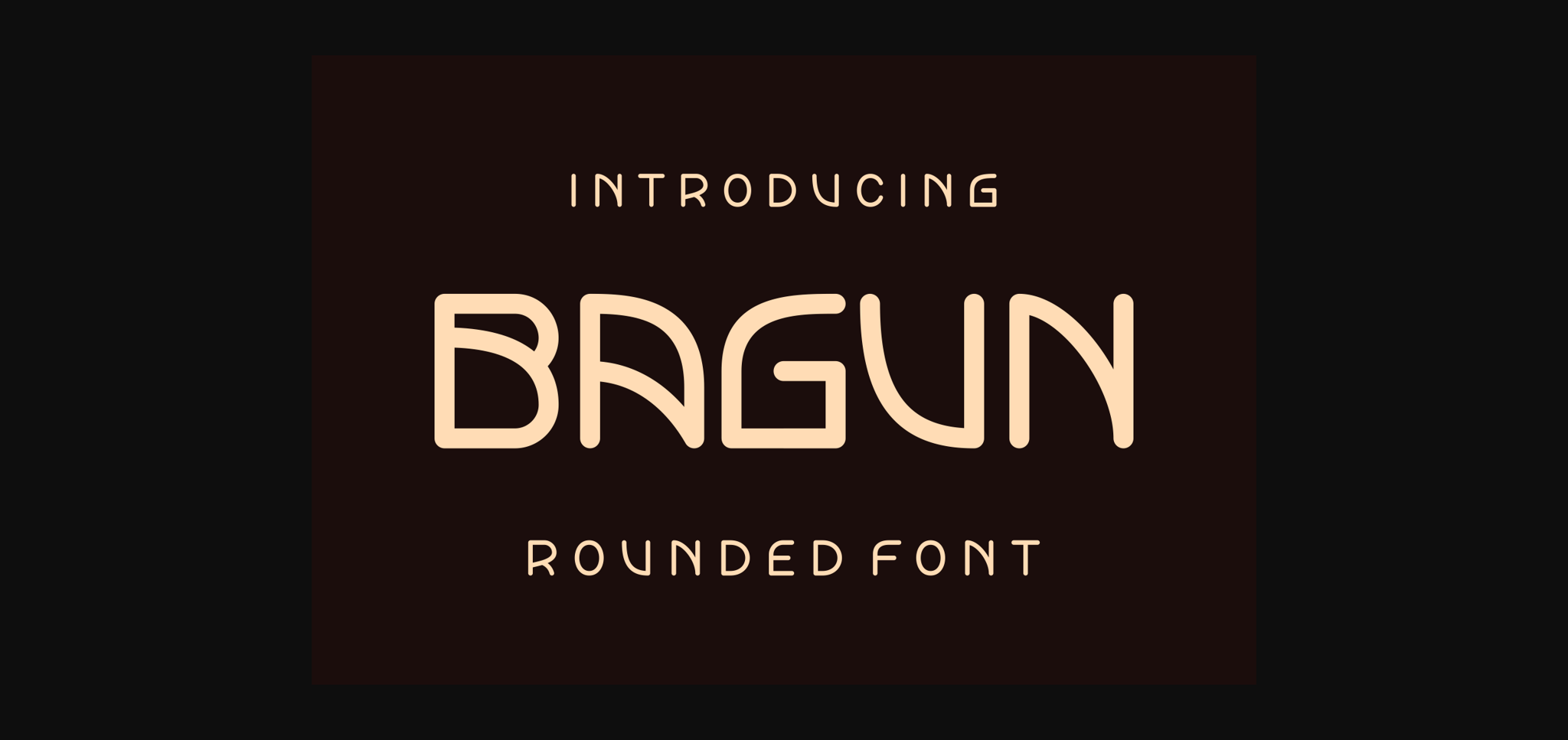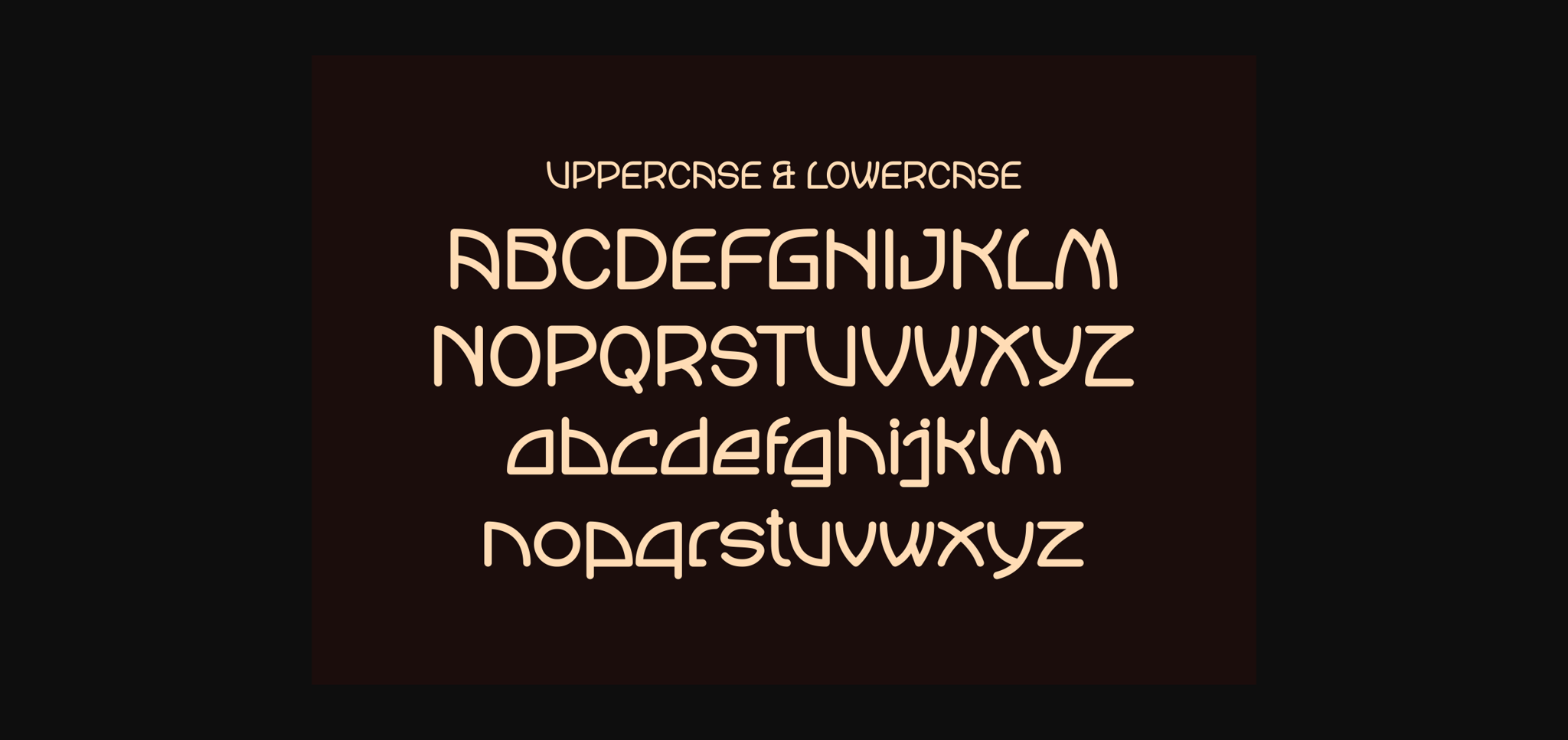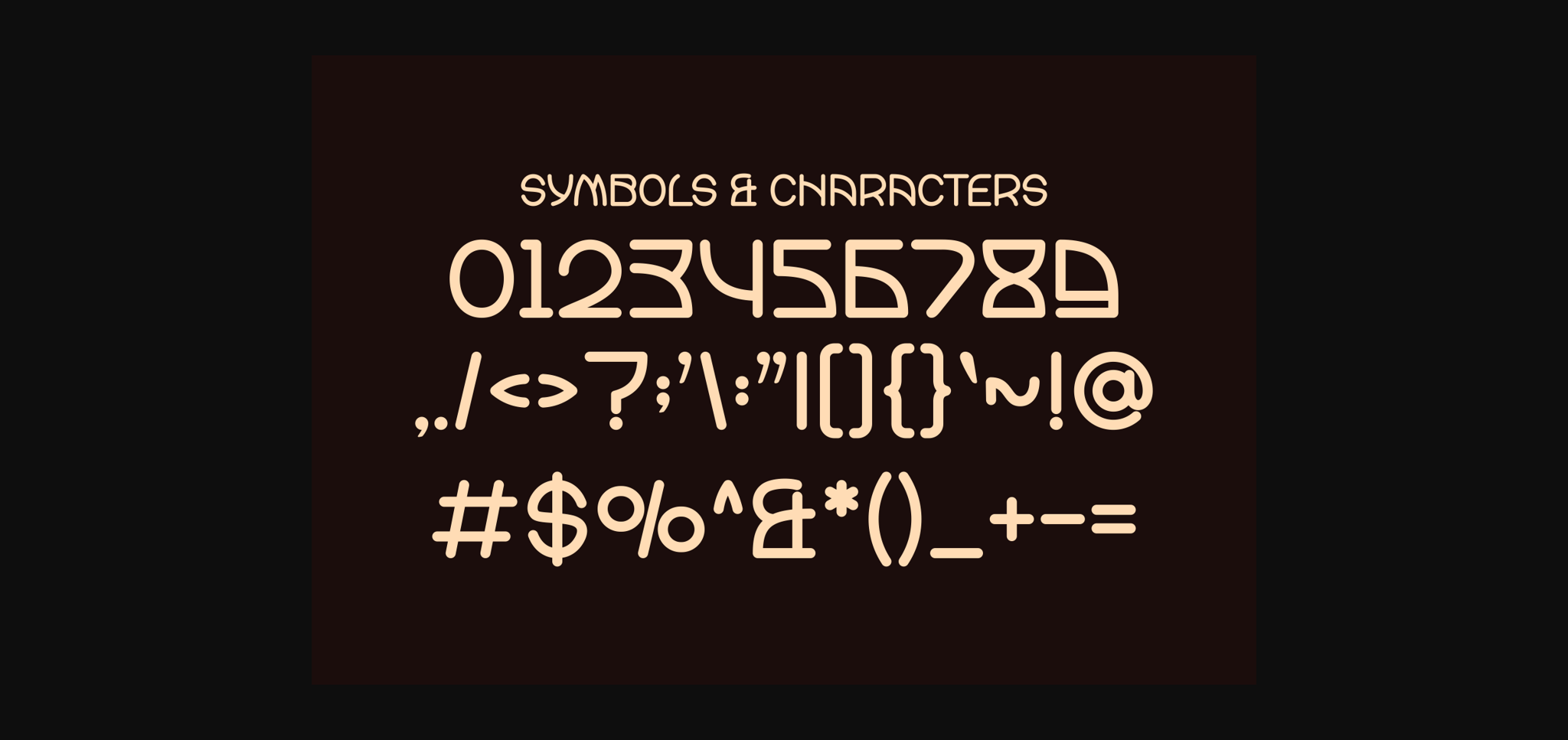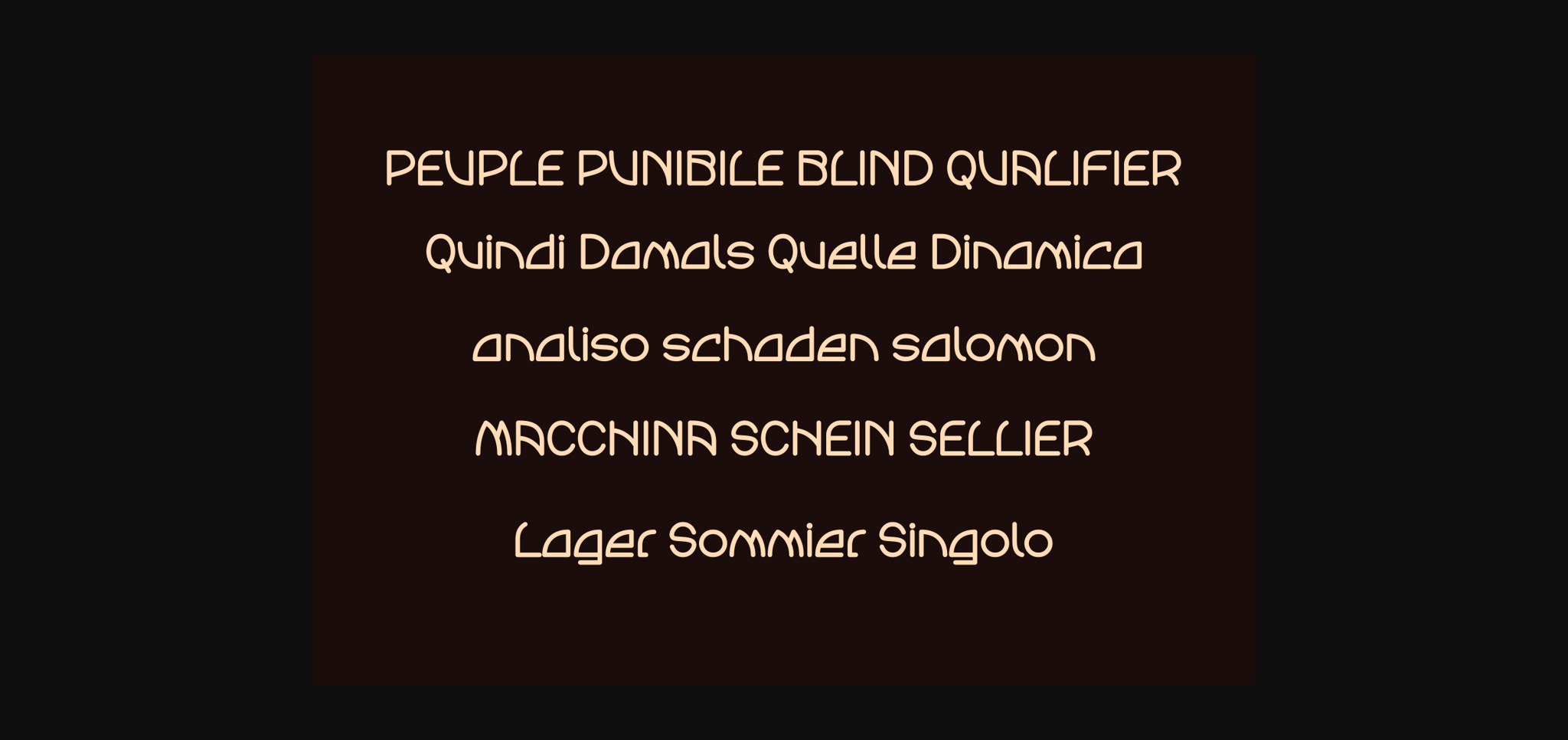
Bagun Font
About Bagun Font
**Bagun**
Perfectly suited on print/screen. it’s perfect for Branding, name card, poster, logo, magazine,
cover, banner, t-shirt and headers, or even large-scale artwork.
* Uppercase & Lowercase
* Number
* Punctuation